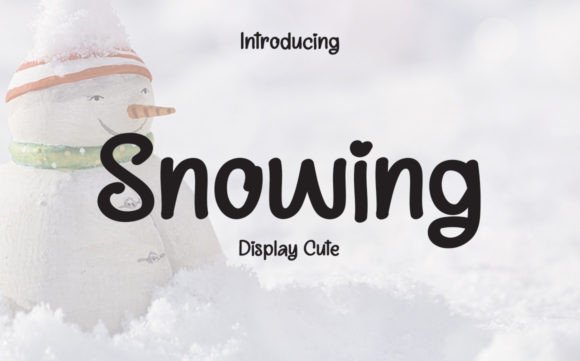
About Snowing Font
Snowing Font is a sweet and romantic handwritten script designed with a delicate flow. With graceful strokes and an elegant rhythm, this typeface brings warmth and sophistication to any project. Because of its versatile style, Snowing Font is ideal for wall displays, wedding invitations, greeting cards, logos, posters, and branding.
A Romantic Handwritten Typeface with Delicate Flow
Handwritten fonts are admired for their natural beauty, and Snowing Font captures this with its smooth and refined structure. Its balanced characters ensure readability, while its flowing design provides timeless elegance. Moreover, its romantic appeal adapts seamlessly to both modern and traditional layouts. As a result, this handwritten script is a dependable option for designers seeking charm and originality.
For personal stationery and special events, Snowing Font is an excellent choice. For example, it can transform a wedding invitation into a heartfelt keepsake. In addition, it works beautifully for thank-you notes, seasonal greetings, and birthday cards. Because of its romantic character, every project feels warm, stylish, and memorable.
A Script Typeface for Logos and Branding
Businesses and creatives aiming for elegance can rely on Snowing Font. It adds personality and sophistication to logos, packaging, and product labels. Furthermore, on social media, it enhances posts, stories, and promotional content with a romantic, handwritten touch. When paired with minimalist sans serif typefaces, Snowing Font creates harmony between creativity and professionalism.
Another strength of Snowing Font is its adaptability across mediums. In print, it shines on posters, brochures, magazines, and merchandise. Digitally, it elevates websites, blogs, and presentations with authenticity. Since it remains clear across both small and large sizes, this script typeface is practical for diverse creative uses.